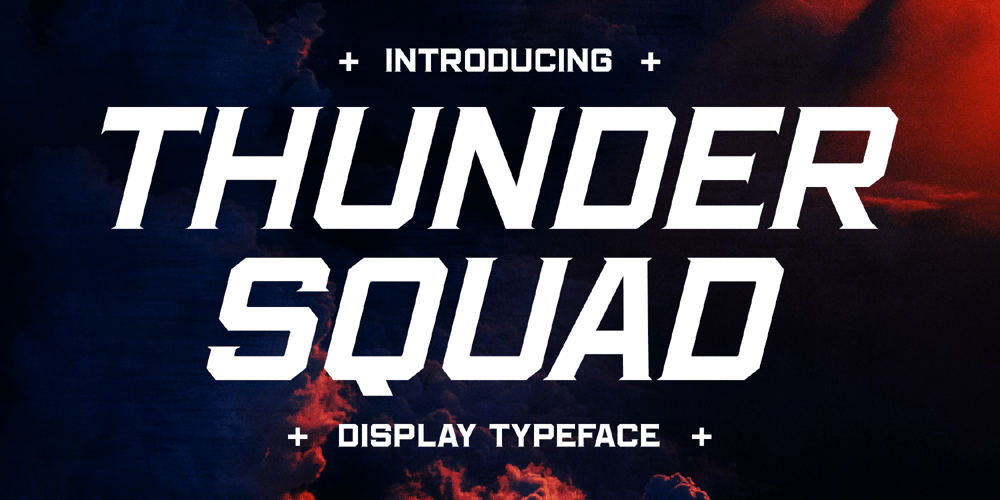
Thunder Squad
Thunder Squad font
Thunder Squad Font Family was designed by Heru Utama Putra and published by Letterena Studios. Thunder Squad contains 2 styles and family package options. A serif modern and classic typeface that has its own unique style & modern look.This typeface is perfect for an elegant & luxury logo, book or movie title design, fashion brand, magazine, clothes, lettering, quotes, and so much more.